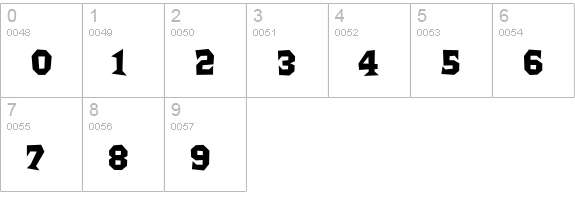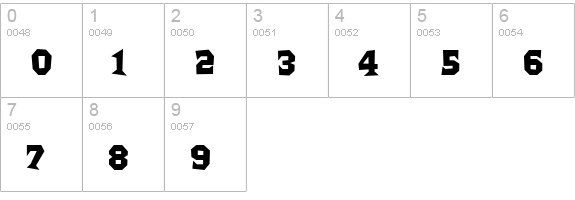
Bordello-Bold Font Details
Bordello-Bold is a strong, high-contrast variant in the Bordello typeface family \xE2\x80\x94 well suited to headlines, attention-grabbing titles, and strong calls-to-action.
Introducing Bordello-Bold font, a stunning display typeface that exudes elegance and sophistication. With its bold and unique design, Bordello-Bold is perfect for making a statement in your projects. This font commands attention and adds a touch of luxury to any design. The best part? Bordello-Bold is available for free download at FontsMarket.com. This means you can elevate your projects with this exquisite font without breaking the bank. Whether you're working on a branding project, poster design, or any other creative endeavor, Bordello-Bold is sure to impress. Add a touch of glamour to your designs with Bordello-Bold font and let your creativity shine. Download it now for free at FontsMarket.com and make a bold statement with your next project.